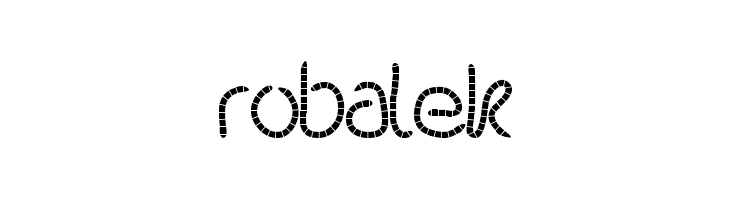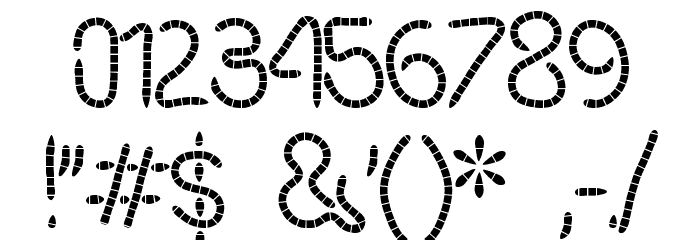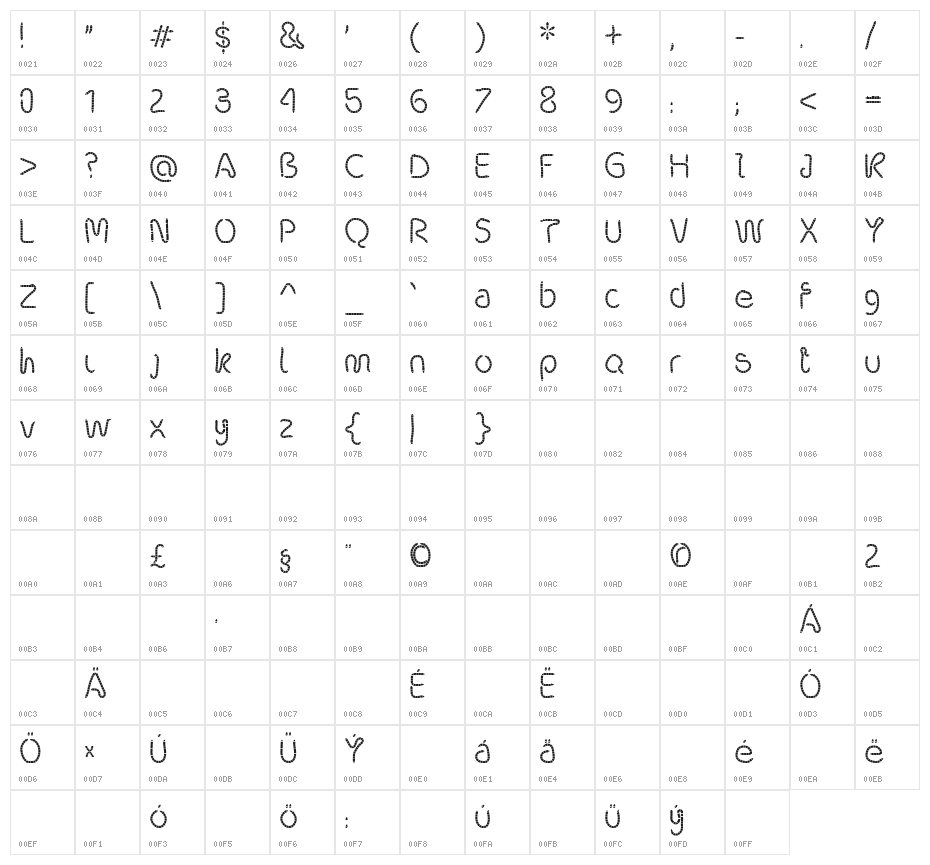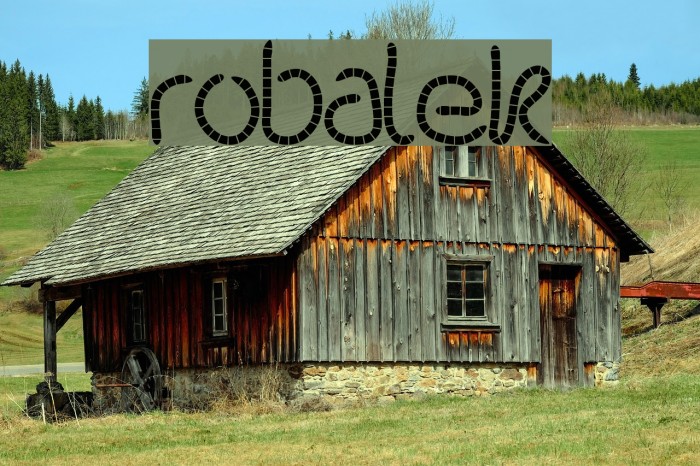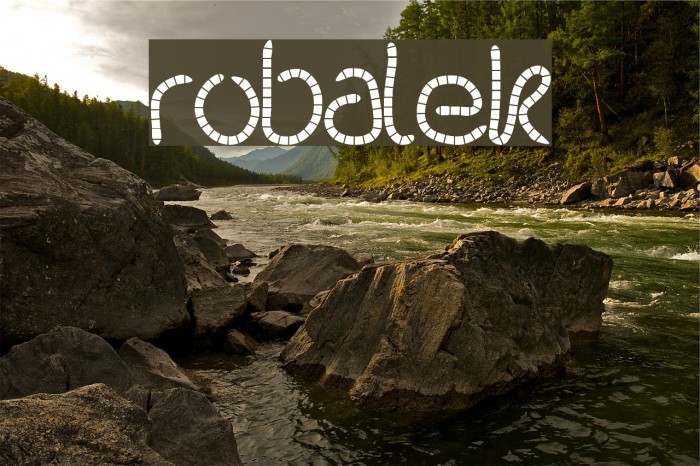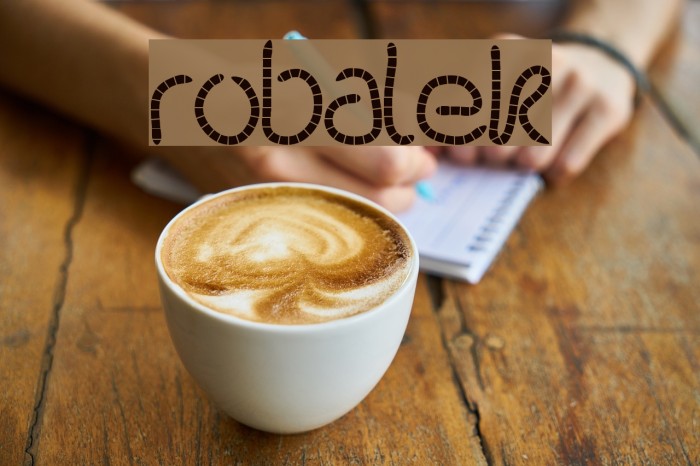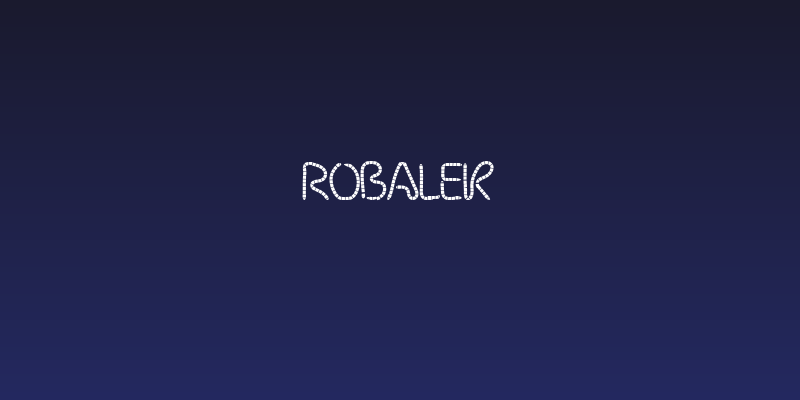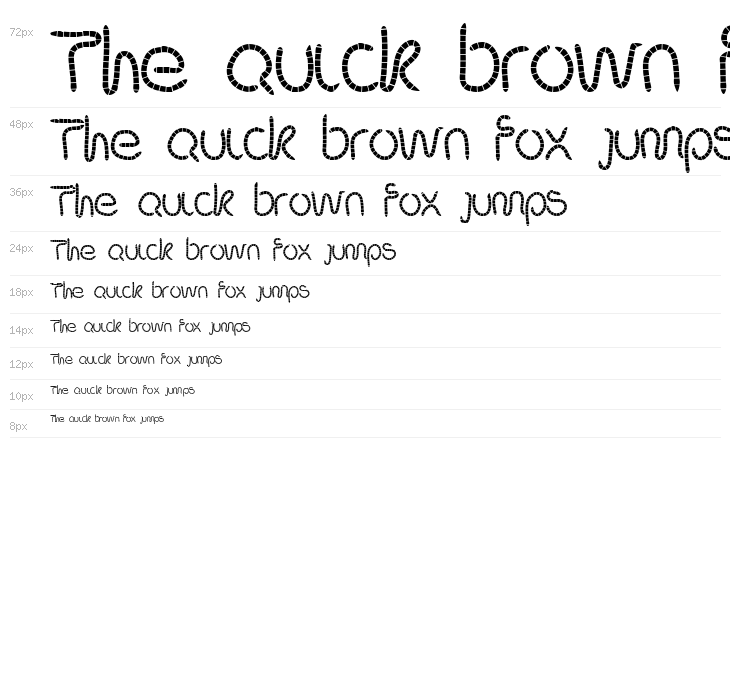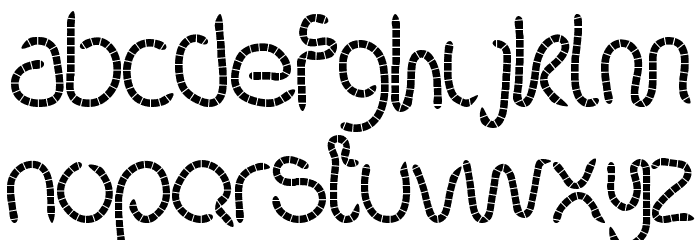
robalek Font
robalek Description
This font features a unique, segmented design that resembles a mosaic or tiled pattern. Each character is composed of small, evenly spaced blocks that create a distinctive, textured appearance. The font maintains a consistent thickness throughout, giving it a uniform look. The uppercase and lowercase letters are well-defined, with rounded edges that add a playful touch. Numbers and special characters follow the same segmented style, ensuring cohesion across all elements. This font stands out due to its decorative nature, making it ideal for creative and artistic projects.